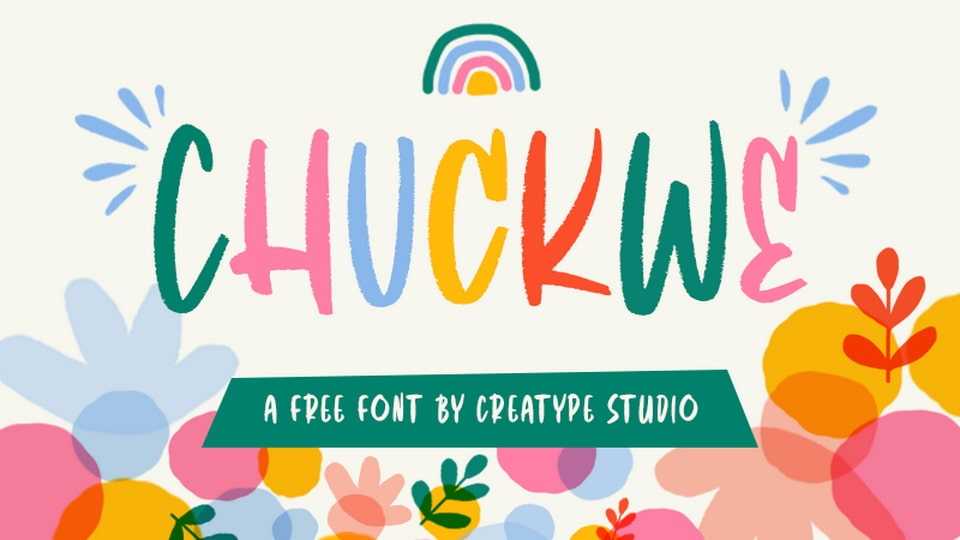
Download Chuckwe font, a playful and funny hand-drawn typeface that captures the whimsical charm of chalkboard lettering with its irregular strokes and slightly textured edges.